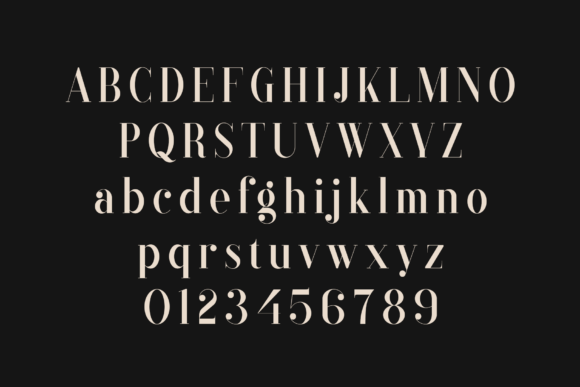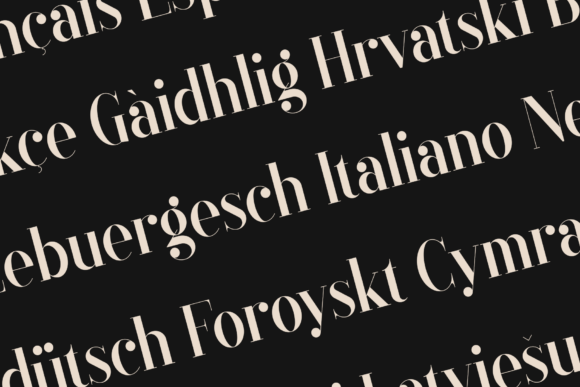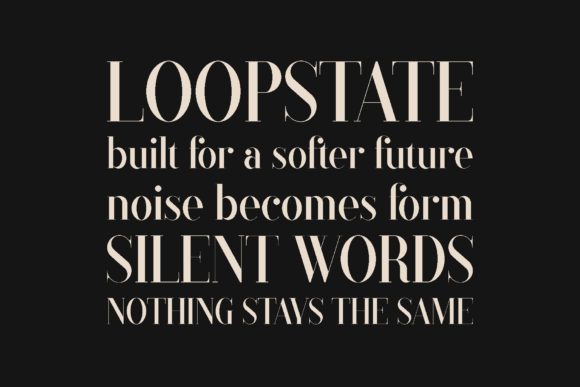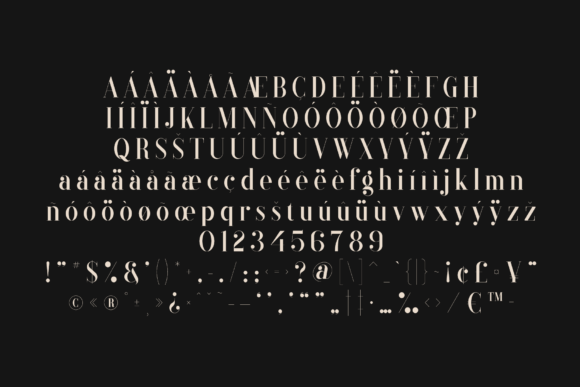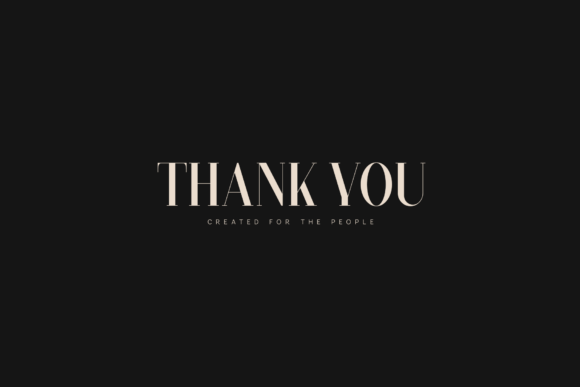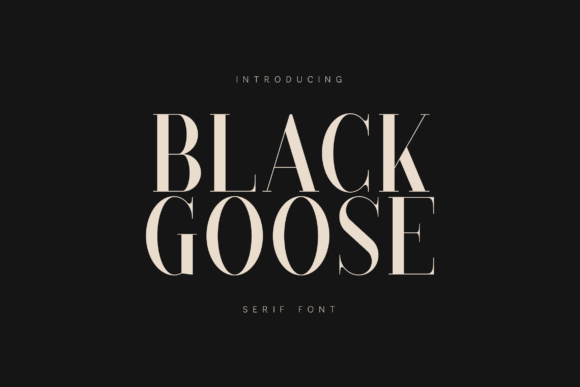
The Elegance of Black Goose Font: A Designer’s Delight
I’ll never forget the time I was working on a luxury branding project for a high-end fashion client. I had spent hours pouring over design concepts, but something was missing – the perfect font. That’s when I stumbled upon Black Goose, a refined modern serif font that instantly elevated my design game. With its timeless elegance and sophisticated charm, Black Goose has become a staple in my design toolkit, and I’m excited to share its awesomeness with you! ✨
An Honest Review of Black Goose Font
- ✨ Timeless elegance: Black Goose exudes sophistication and refinement, making it perfect for luxury logos, fashion editorials, and high-end branding projects.
- ✅ Smooth curves and classic proportions: The font’s gentle curves and balanced proportions ensure it remains highly readable across print and digital media.
- 🌎 Multilingual support: With support for multiple languages, Black Goose is an excellent choice for global design projects.
- 📦 Comprehensive character set: The font includes uppercase, lowercase, numerals, punctuation, symbols, and more, making it a versatile design tool.
While Black Goose is an exceptional font, there are a few minor quirks to consider:
- 🤔 Limited stylistic alternates: While the font offers some stylistic alternates, it may not have as many options as some designers would like.
- ⚠️ Occasional kerning issues: As with any font, some users may experience kerning issues in certain applications or languages.
The Story Behind Black Goose Font
Black Goose font was designed with the goal of creating a timeless, elegant serif font that would cater to the needs of luxury brands and designers. Inspired by classic typography and refined modern design principles, Black Goose’s creator aimed to craft a font that would exude sophistication and refinement. While the actual design story might be fictional, it’s clear that Black Goose has become a beloved font among designers and crafters.
Q: What is Black Goose font best suited for?
A: Black Goose font is perfect for luxury logos, fashion editorials, magazines, wedding invitations, and high-end branding projects.
Q: Is Black Goose font suitable for digital use?
A: Yes, Black Goose font is highly readable across digital media and can be used for various digital design projects.
Q: Does Black Goose font support multiple languages?
A: Yes, Black Goose font includes multilingual support, making it an excellent choice for global design projects.